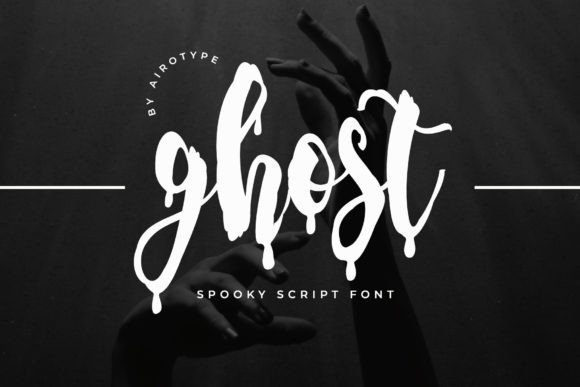
Introducing Ghost Font, the ultimate script font that will send shivers down your spine! Created by airotype, this bouncy handwritten font exudes spooky vibes, making it the perfect choice for all your haunting design needs. Whether you're working on a Halloween project, designing a chilling t-shirt, or creating eerie stickers, Ghost Font will bring your ideas to life with its captivating simplicity and cursive elegance.
Are you ready to dive into the world of the supernatural? Ghost Font will transport your audience into a realm of mystery and suspense. Its unique style captures the essence of all things ghostly, adding a touch of enchantment to your designs. With its carefully crafted curves and delicate strokes, this font will make your text come alive, leaving a lasting impression on anyone who lays eyes on it.
But Ghost Font isn't just limited to spooky themes. Its versatility allows it to adapt to a variety of projects. From crafting to sublimation, this font seamlessly blends into any creative endeavor, giving your work that extra edge. Its ability to evoke emotions and spark curiosity makes it an excellent choice for captivating your audience's attention.
Imagine the thrill of seeing your designs come to life with Ghost Font. Its handcrafted charm and attention to detail will elevate your work to new heights, making it stand out from the crowd. Whether you're a professional designer or a passionate hobbyist, this font will become your go-to tool for creating captivating visuals.